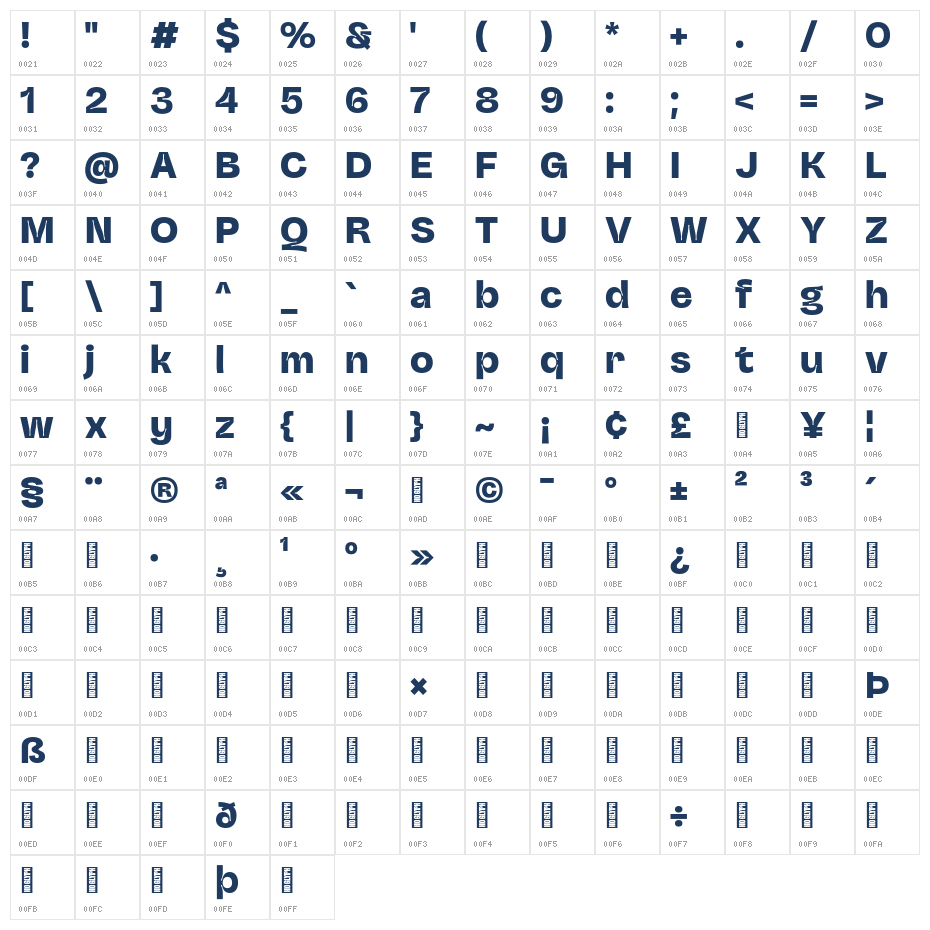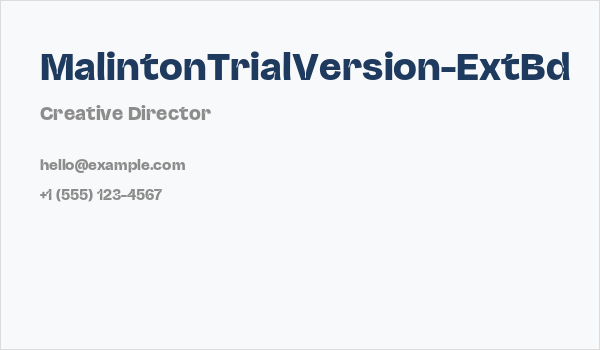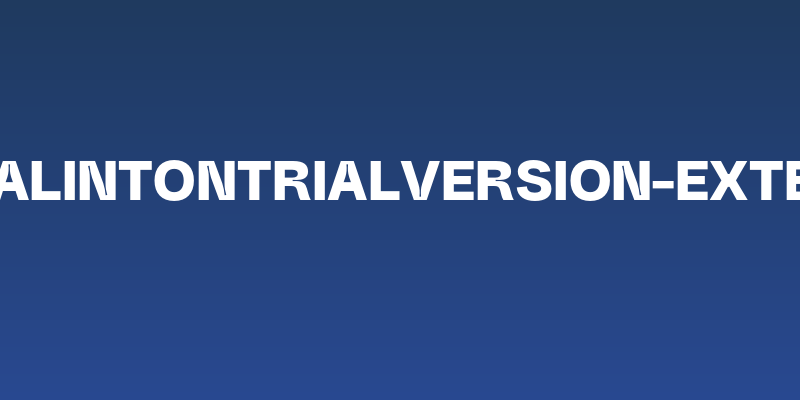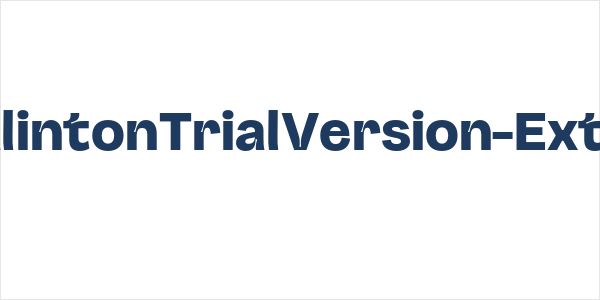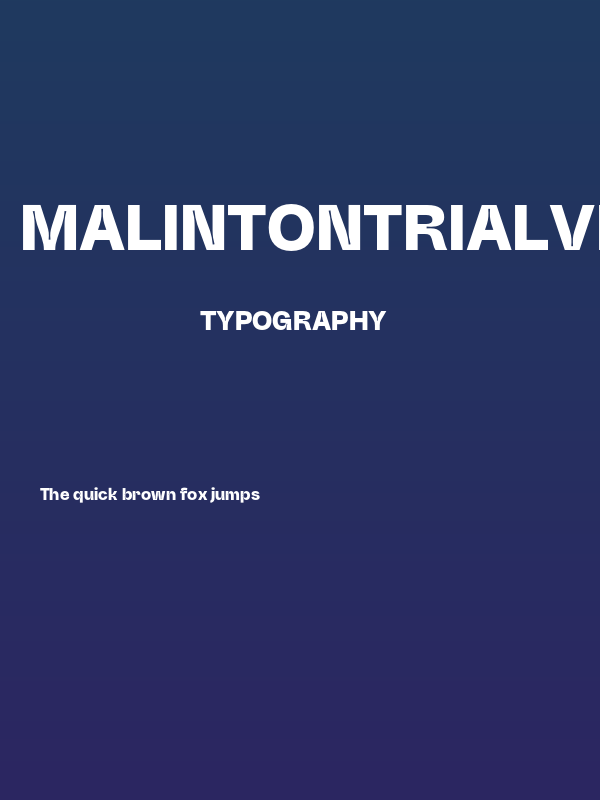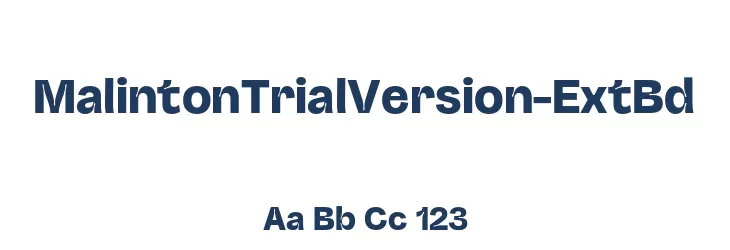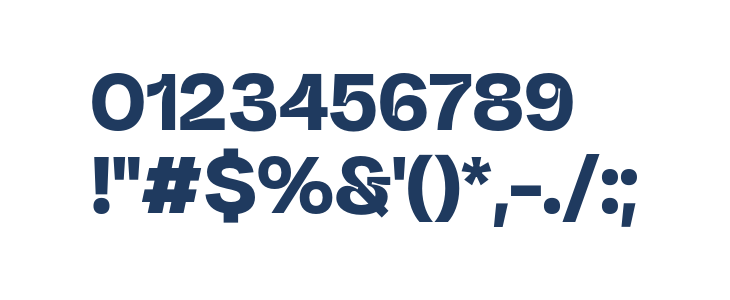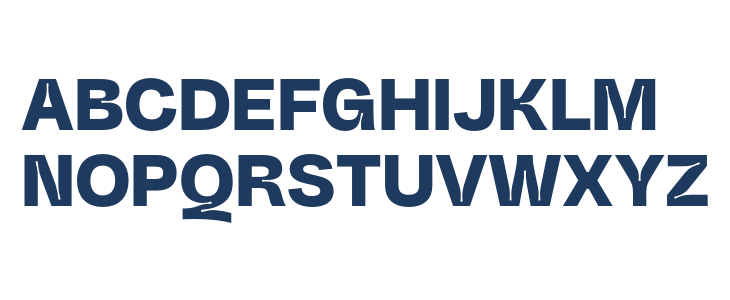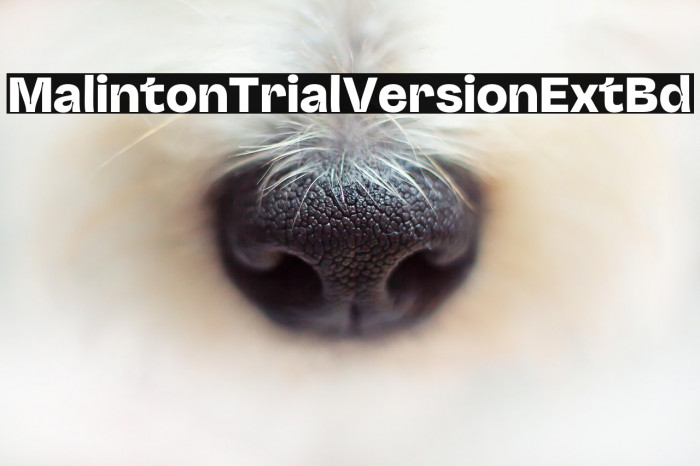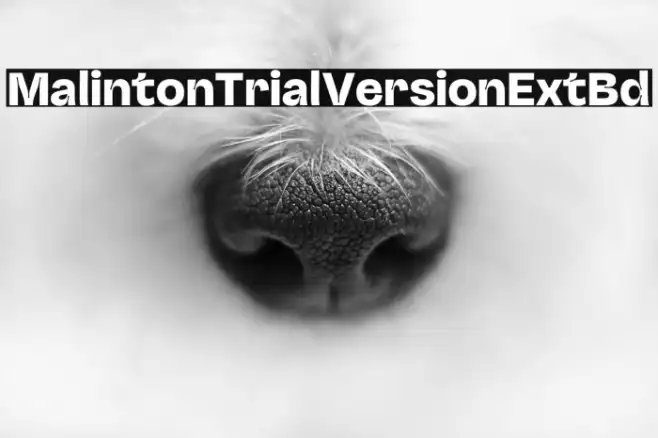
MalintonTrialVersion-ExtBd Font
MalintonTrialVersion-ExtBd Description
Bold, rounded, sans-serif font with a modern and friendly appearance.
| Overall Style | Modern, Friendly |